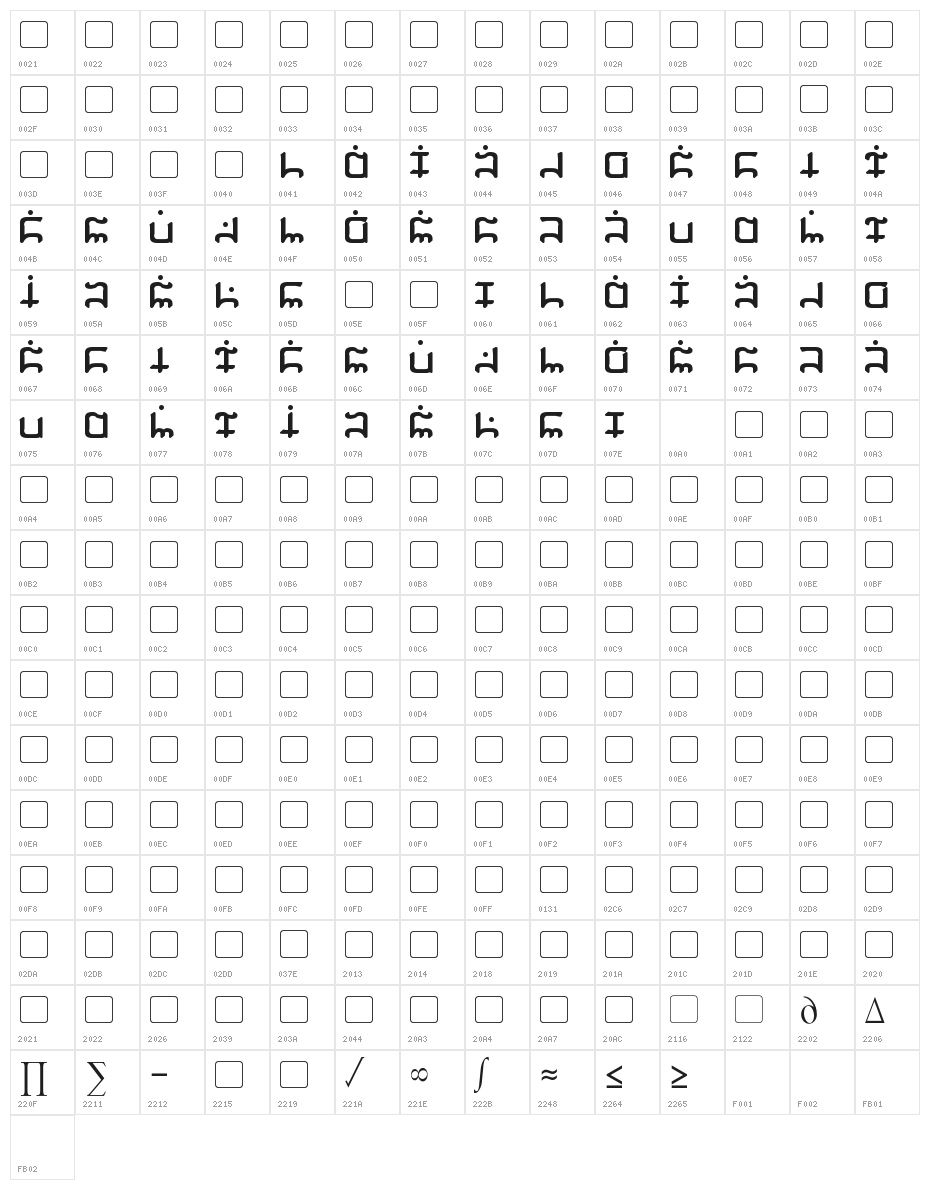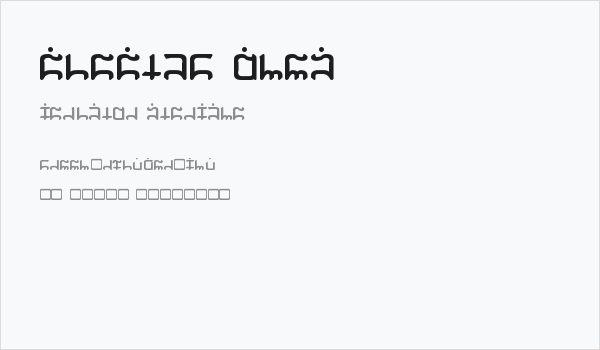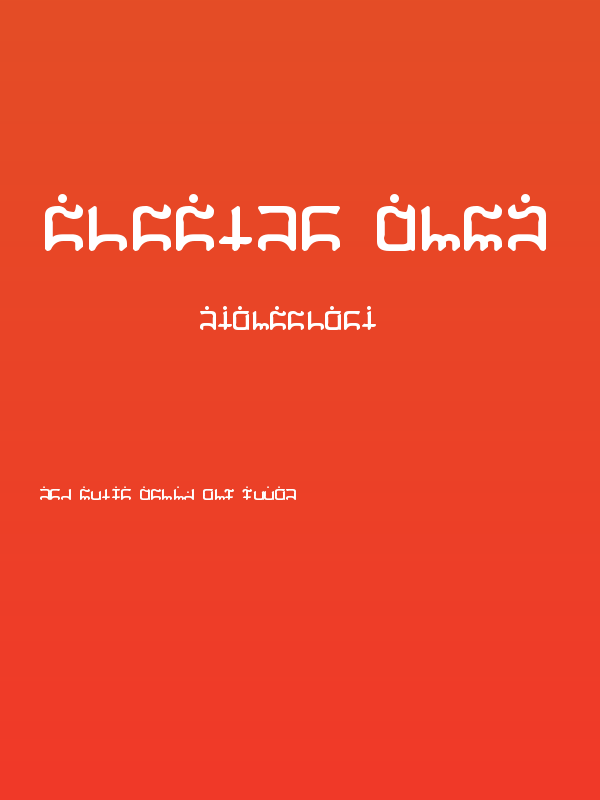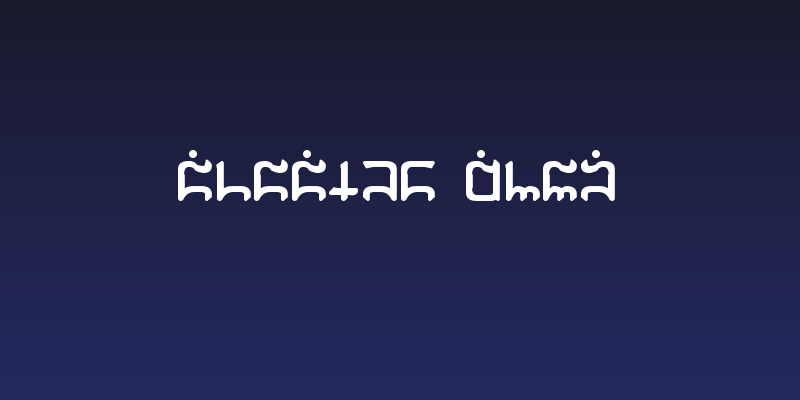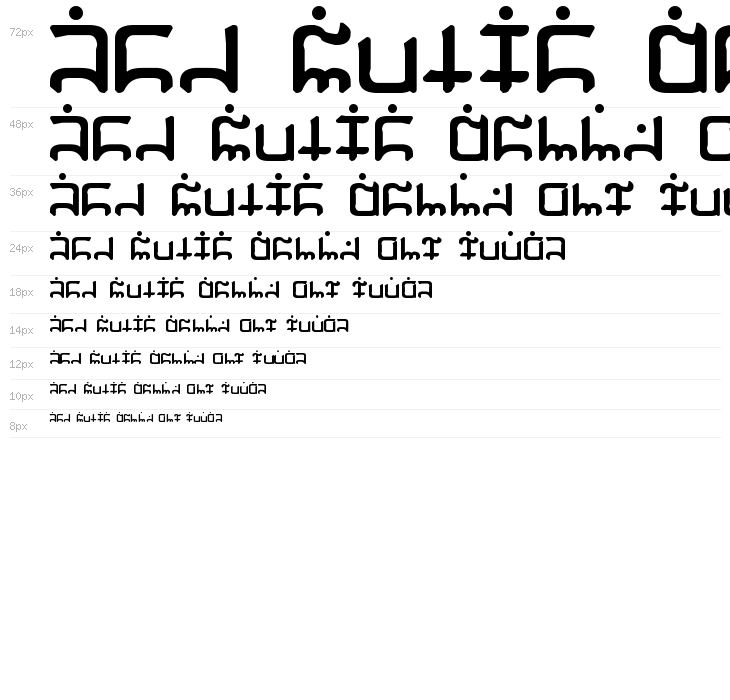
Gargish Bold Font
Gargish Bold Description
This font features a unique and decorative style, characterized by its bold and intricate letterforms. Each character is crafted with a combination of thick strokes and rounded edges, giving it a distinct and artistic appearance. The design incorporates elements that resemble ancient or mystical scripts, making it stand out with its ornamental and elaborate details. The font's boldness ensures high visibility, while its decorative nature adds a touch of elegance and mystery. It is suitable for projects that require a strong visual impact and a sense of uniqueness.
| Proposed Projects | Ideal for fantasy-themed designs, game titles, posters, and any project needing a mystical or ancient aesthetic. |